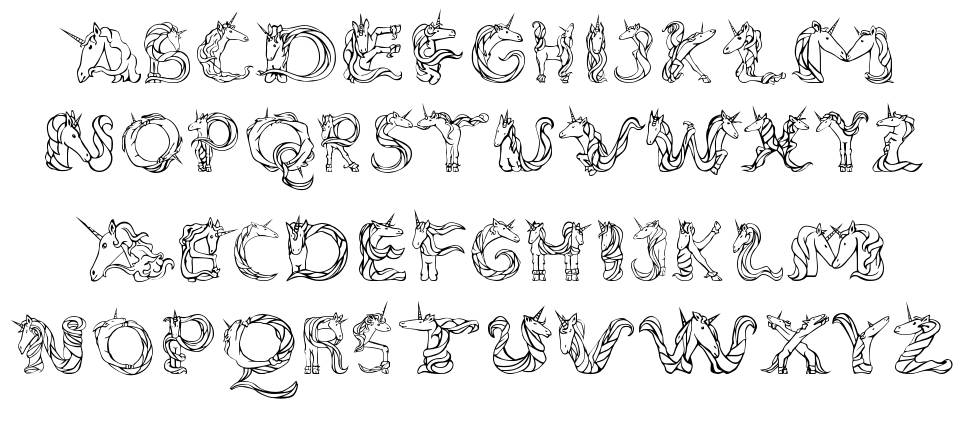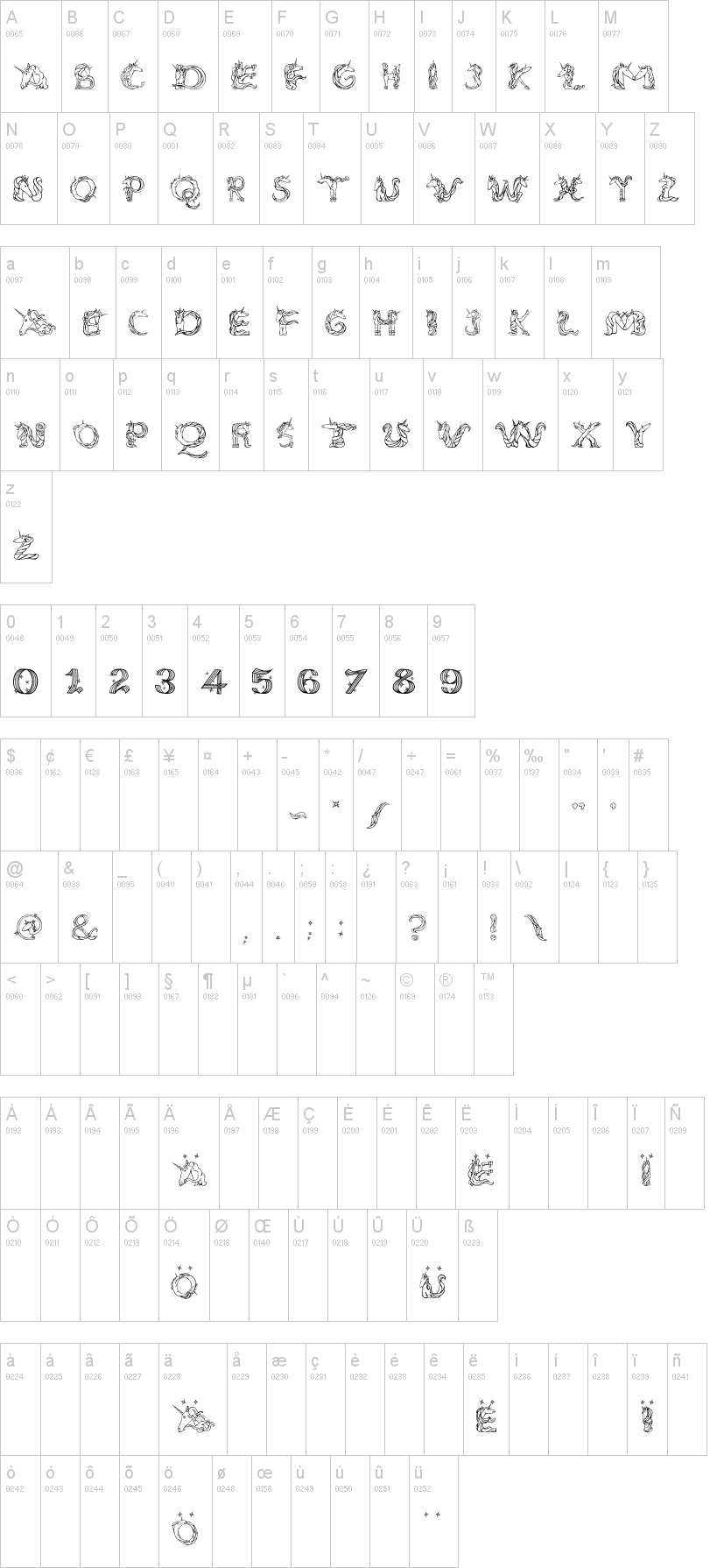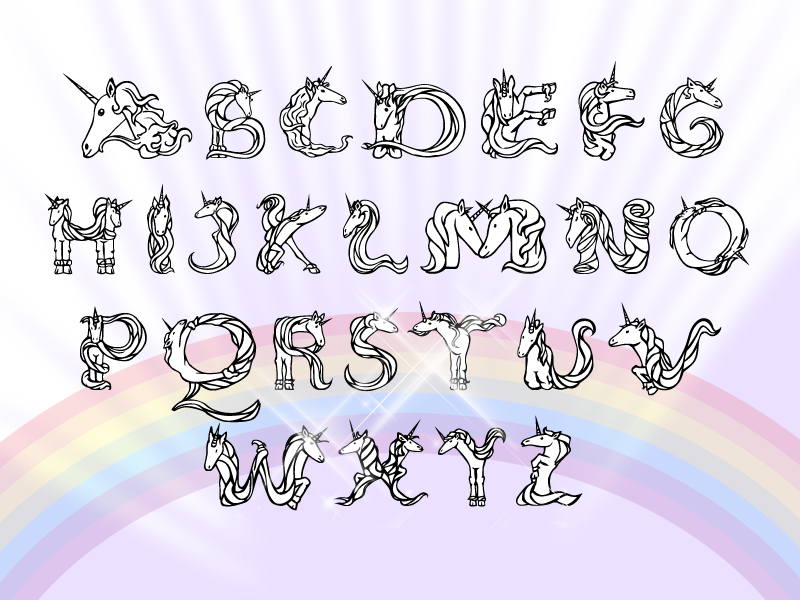
Magical Unicorn Font Download magical unicorn for free, view sample text, rating and more on fontsgeek. Free download of magical unicorn font family with 2 styles. released in 2011 by arthus and licensed for personal and commercial use. click now to create a custom image with your own words that you can download.
Magical Unicorn Font By Arthur Reinders Folmer Fontriver Do you not have a rainbow powered computer? here is magical unicorn light!. Download free magic unicorn font, view its character map and generate text based images or logos with magic unicorn font online. Download magical unicorn font for pc mac for free, take a test drive and see the entire character set. moreover, you can embed it to your website with @font face support. Magical unicorn is a fancy type font that can be used on any device such as pc, mac, linux, ios and android. this font has 2 styles available ( eenhoorn light unicorn sans light).
Magical Unicorn Font Dafont Download magical unicorn font for pc mac for free, take a test drive and see the entire character set. moreover, you can embed it to your website with @font face support. Magical unicorn is a fancy type font that can be used on any device such as pc, mac, linux, ios and android. this font has 2 styles available ( eenhoorn light unicorn sans light). With its playful strokes and intricate details, this font exudes a sense of magic and wonder. it’s as if a mystical unicorn has come to life and left its mark on every letter. Download magical unicorn light font | 2 styles free font. file size 0.29mb | arthur reinders folmer,magical unicorn,decorative,fancy,arthur reinders folmer,magical unicorn,magical,unicorn. Download magical unicorn font from free cdn or use it on your website as webfont. Magic unicorn by hansco in fancy > decorative 62,337 downloads (34 yesterday) 1 comment free for personal use download.
Magical Unicorn Font Dafont With its playful strokes and intricate details, this font exudes a sense of magic and wonder. it’s as if a mystical unicorn has come to life and left its mark on every letter. Download magical unicorn light font | 2 styles free font. file size 0.29mb | arthur reinders folmer,magical unicorn,decorative,fancy,arthur reinders folmer,magical unicorn,magical,unicorn. Download magical unicorn font from free cdn or use it on your website as webfont. Magic unicorn by hansco in fancy > decorative 62,337 downloads (34 yesterday) 1 comment free for personal use download.